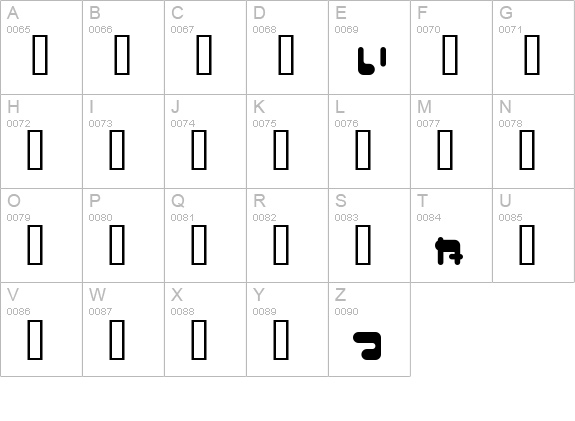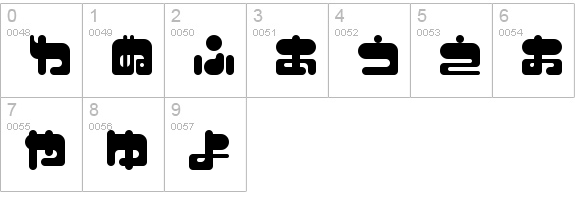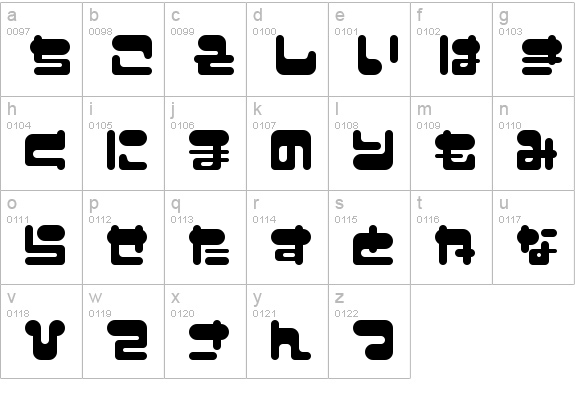
I2FuwafuwaFururu HS Font Details
The I2FuwafuwaFururu HS font is a delightful and whimsical typeface that exudes a sense of playfulness and charm. Its soft and fluffy letterforms are reminiscent of fluffy clouds on a sunny day, adding a touch of lightheartedness to any design. This font is perfect for a wide range of creative projects, including children's books, greeting cards, posters, and more. Its unique and eye-catching style will capture the attention of viewers and bring a smile to their faces. What makes this font even more appealing is that it is completely free to download at FontsMarket.com. This means that you can effortlessly add a touch of cuteness and fun to your designs without breaking the bank. Whether you're a professional designer or a hobbyist, this font is an excellent addition to your collection. With its freely available download, you can easily access the I2FuwafuwaFururu HS font and start incorporating its delightful aesthetic into your projects. So go ahead and let your imagination soar with this charming and free font!